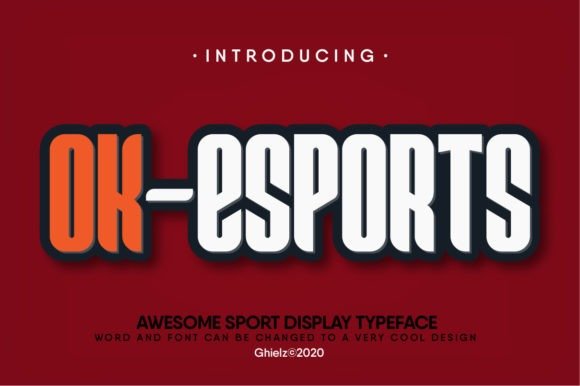
Ok-Esports Display Font
Ok-Esports is a very bold display font with softened angles and dynamic effects. It is perfectly suited for a wide variety of projects!